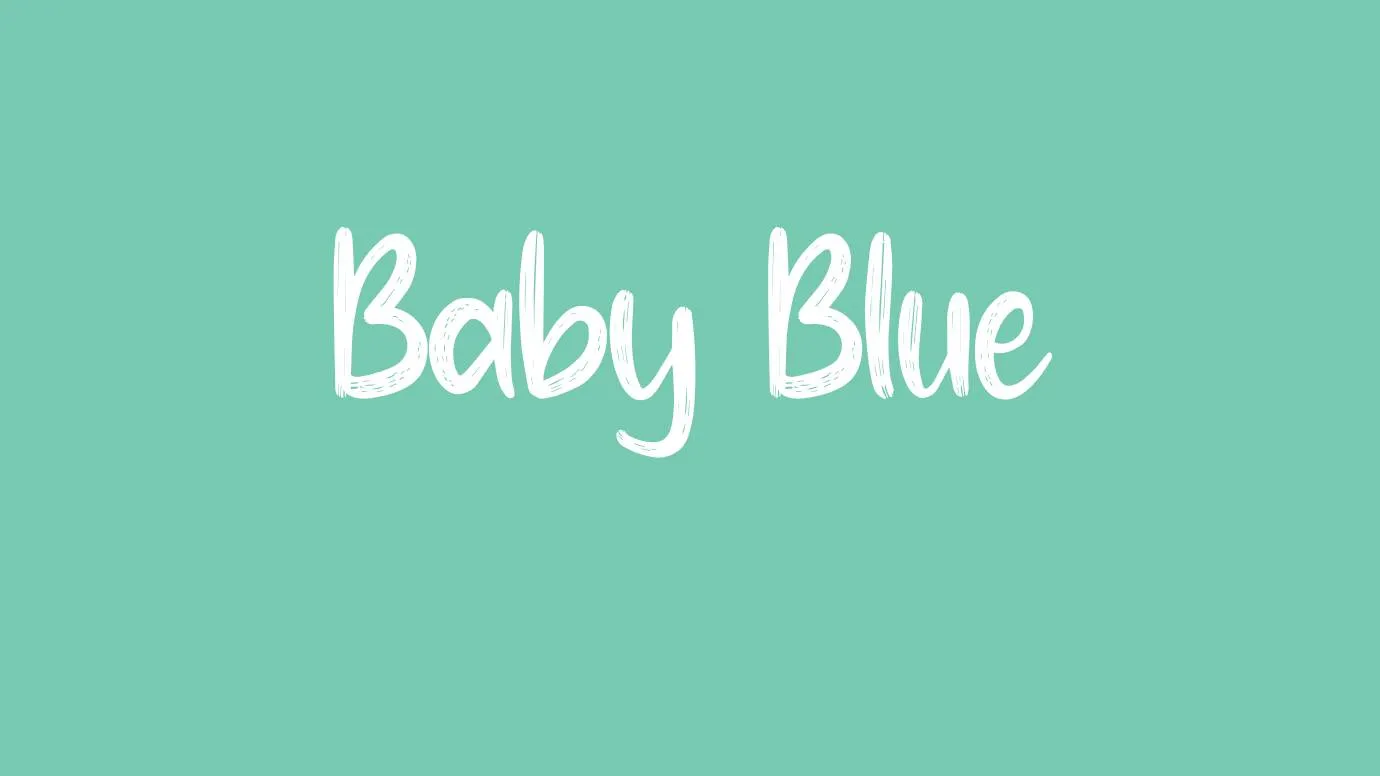
Baby Blue Font Family is a very nice and attractive script-type brush font. Al Ghul designed it. The look of this typeface is very neat and clean. You can easily read it from a distance.
Baby Blue Font
NameBaby Blue Font
DesignerAl Ghul